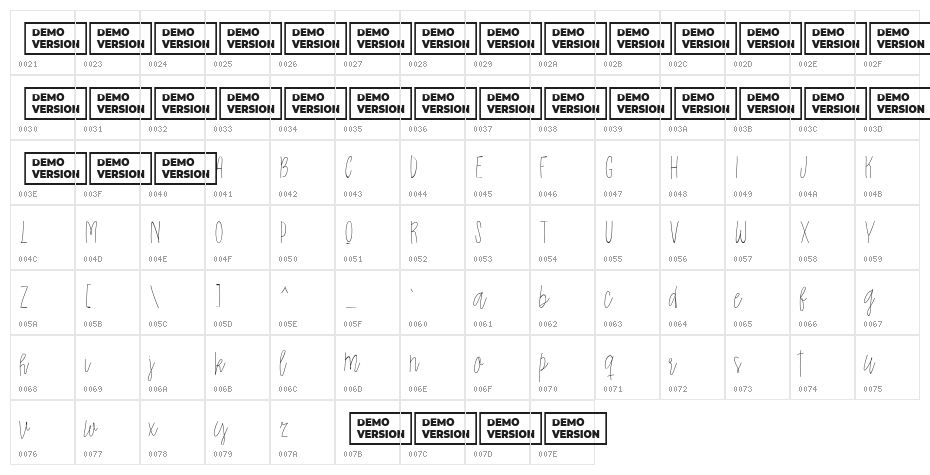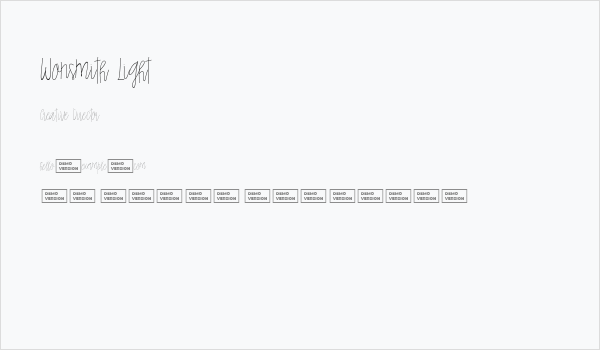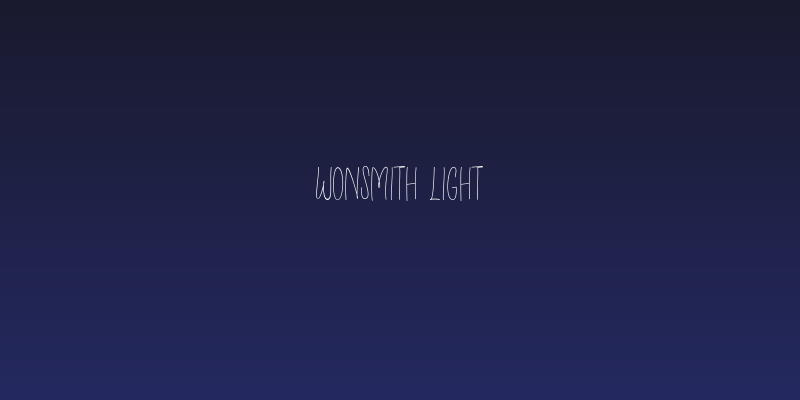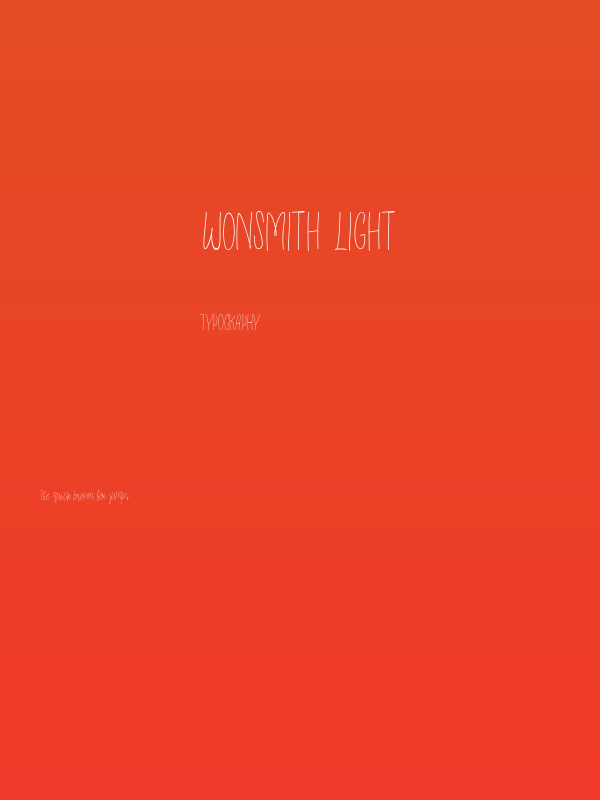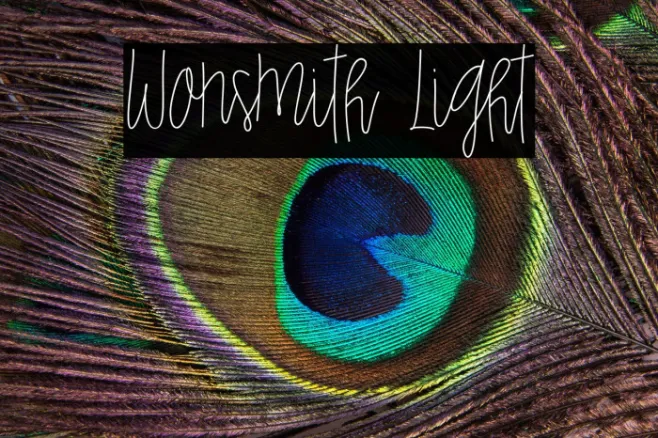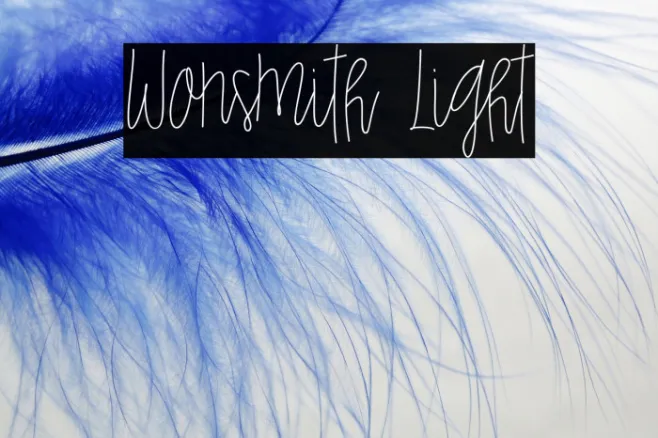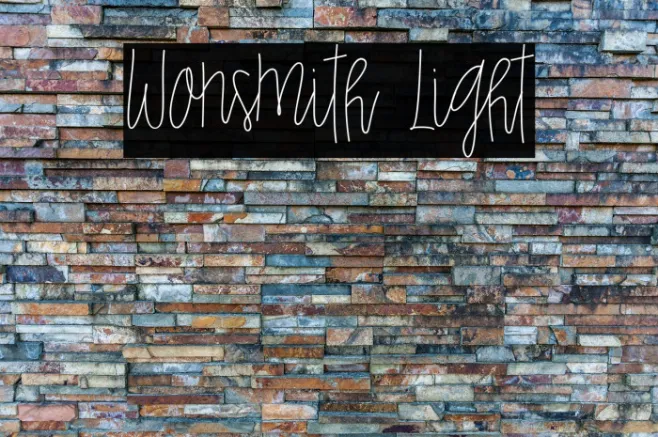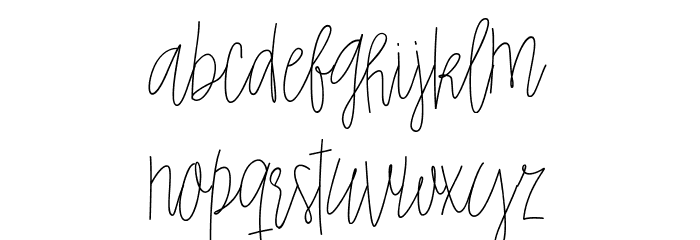
Wonsmith Light Font
Wonsmith Light Description
This font features a playful and casual handwritten style, characterized by its tall, narrow letterforms and slightly irregular strokes. The letters have a whimsical, flowing quality, with a mix of straight and curved lines that give it a dynamic appearance. The uppercase and lowercase letters maintain a consistent style, with a slight slant that adds to its informal charm. The font's thin strokes and light weight contribute to its airy and delicate look, making it suitable for designs that require a personal touch. The spacing between characters is relatively tight, enhancing its cohesive and connected feel.
| Proposed Projects | Ideal for greeting cards, invitations, personal branding, and casual social media graphics. |